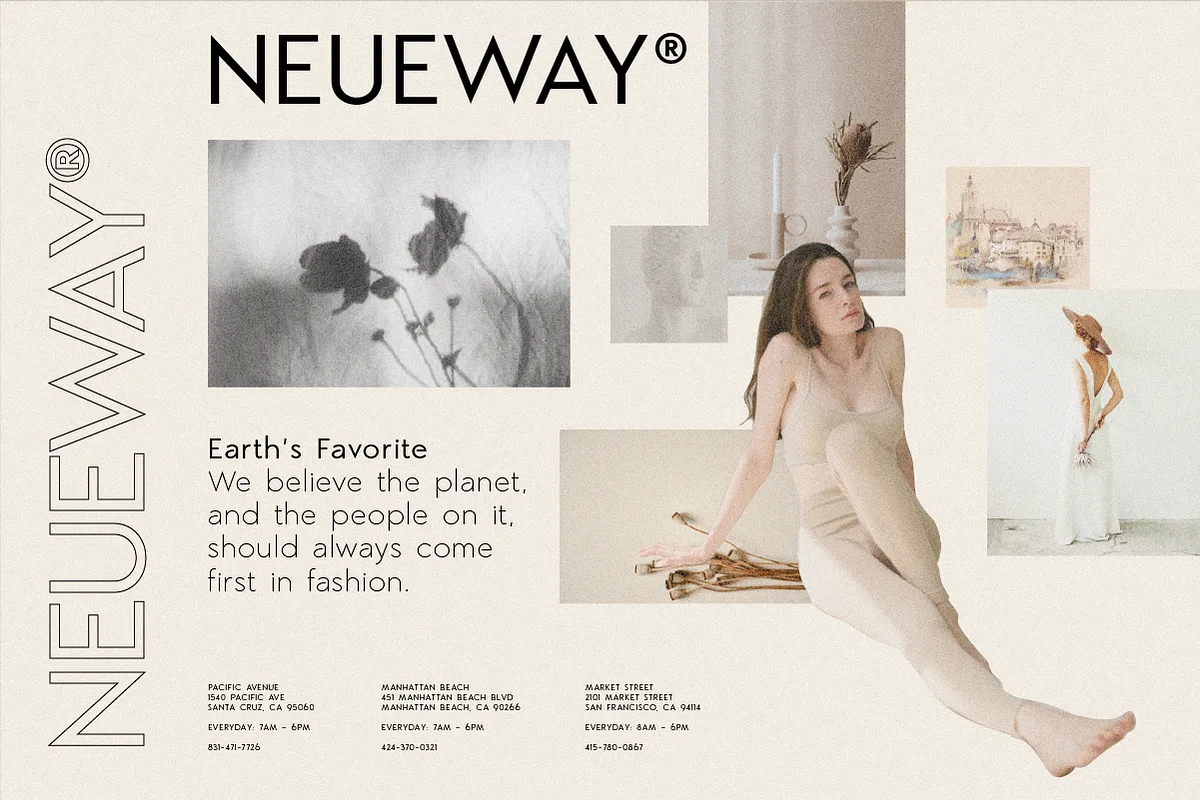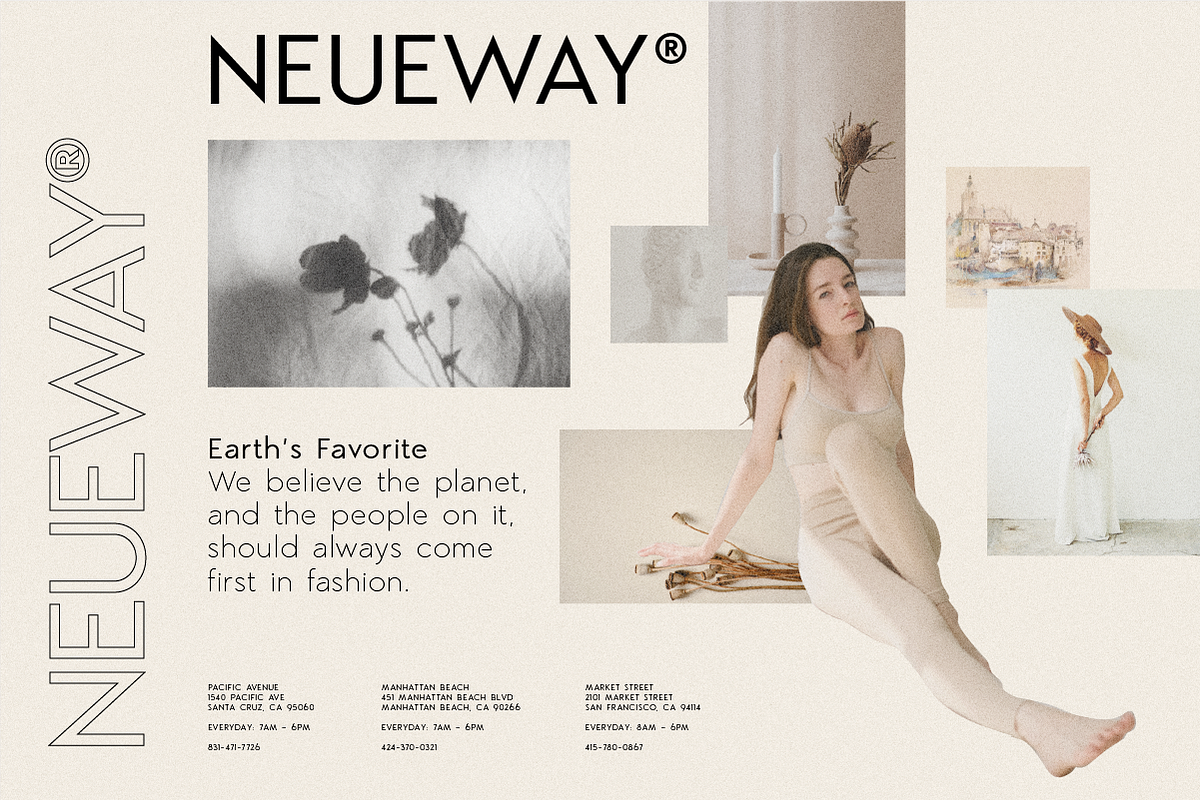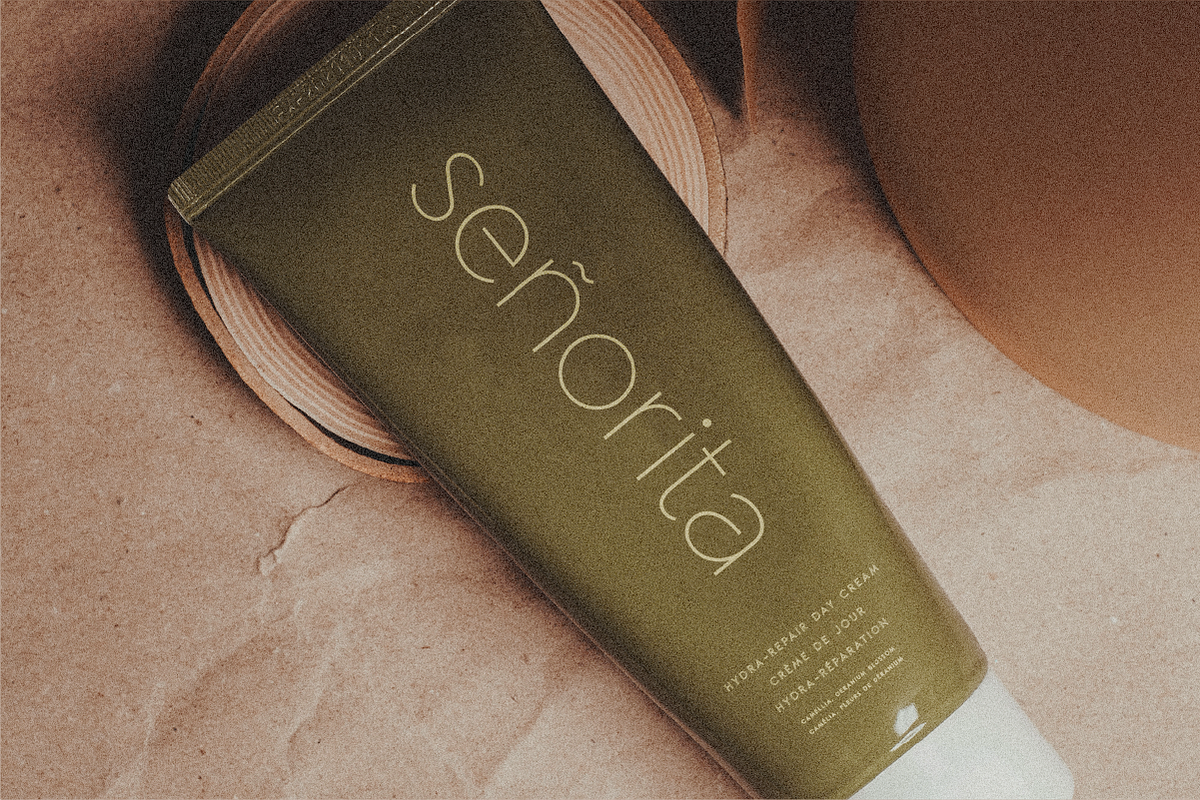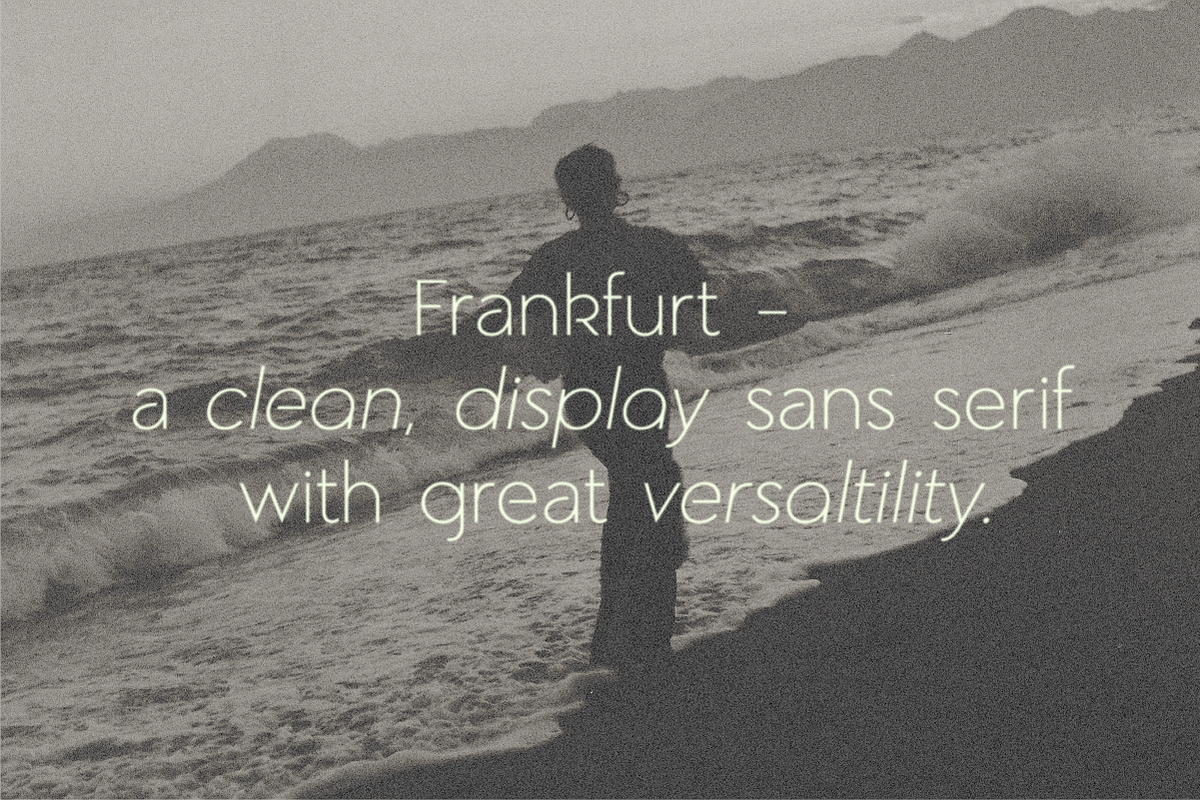
Frankfurt is a clean, display sans serif with great versatility. With multiple weights, this typeface can be used to create a wide range of designs looking to achieve a fun, modern, and youthful look.